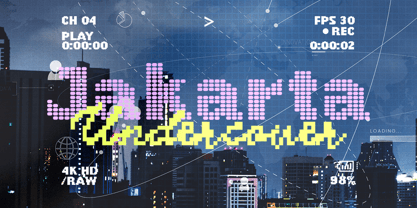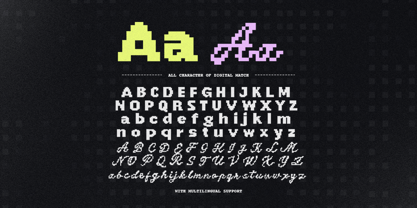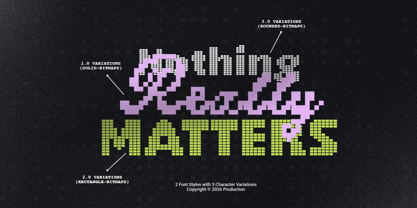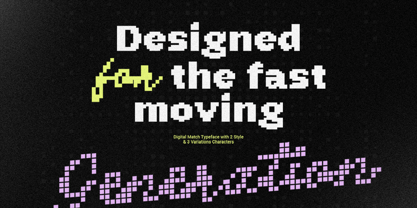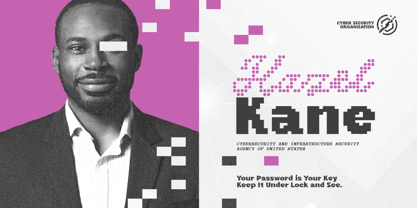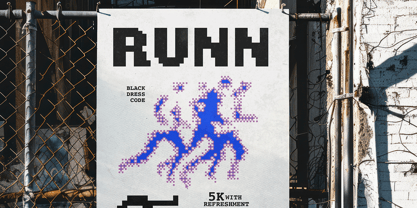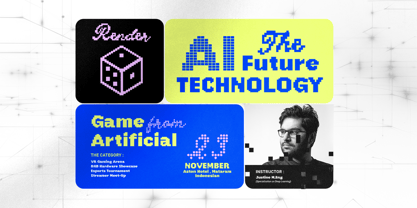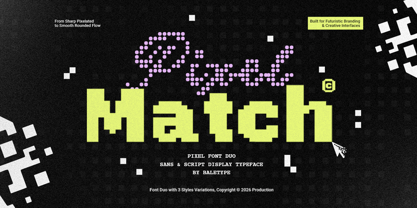
Pixel Match
Die Schriftfamilie Pixel Match wurde von Dzikrul Aulia entworfen und von Bale Type veröffentlicht. Pixel Match enthält 6 Stile und Familienpaketoptionen. Mehr über diese Familie
Digital Match is a modern pixelated font duo that combines a stylish script font with a clean sans-serif design, creating a versatile and futuristic typeface collection. Both styles come with three unique variants, giving you plenty of creative options to match the needs of your project. Designed with a digital and technology-inspired aesthetic, Digital Match is perfect for a wide range of applications, including logotypes, posters, branding, tech events, gaming projects, user interfaces, social media graphics, and any design that requires a modern, futuristic look. The combination of script and sans styles allows for eye-catching typography pairings while maintaining visual consistency. In addition, this font duo includes multilingual support, making it suitable for both local and international projects.